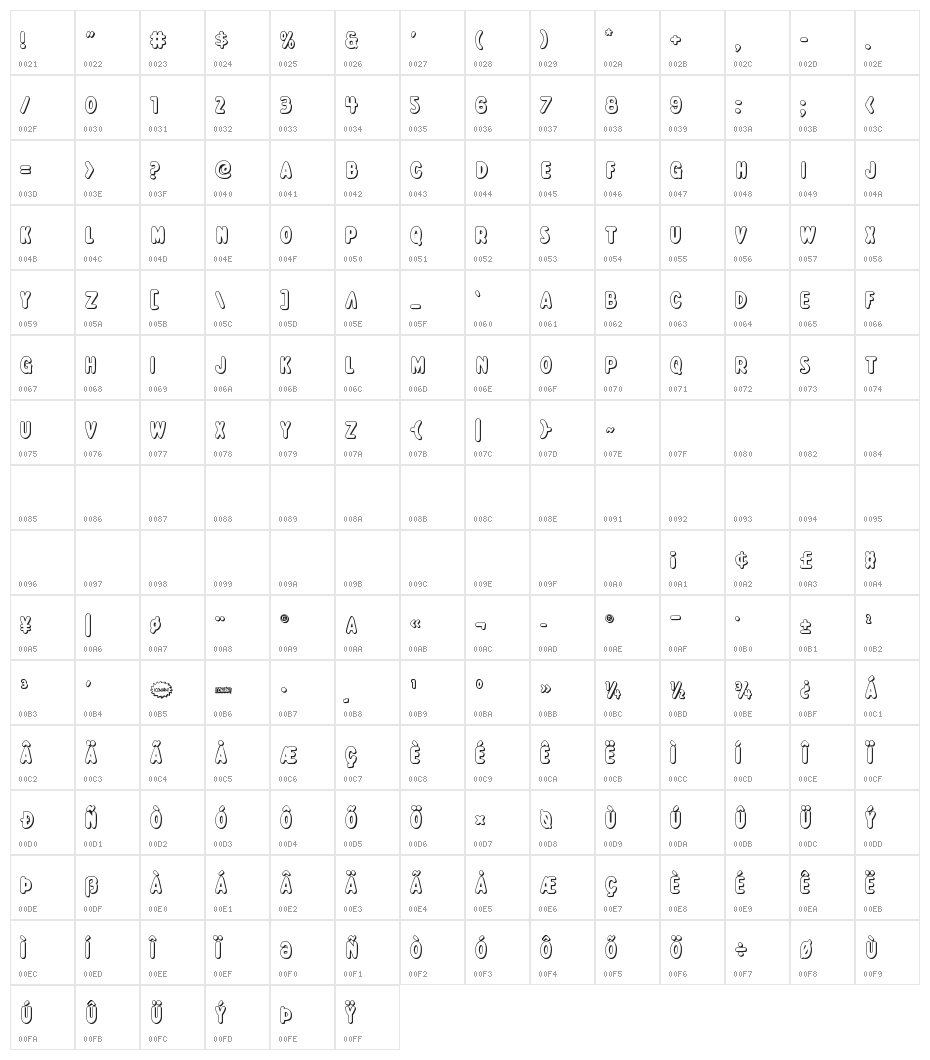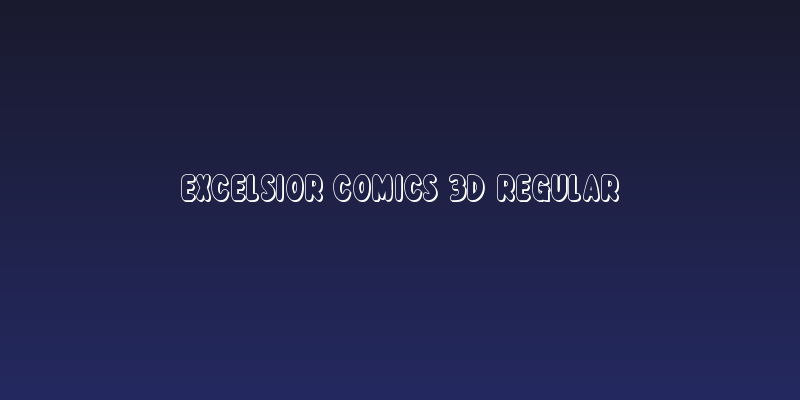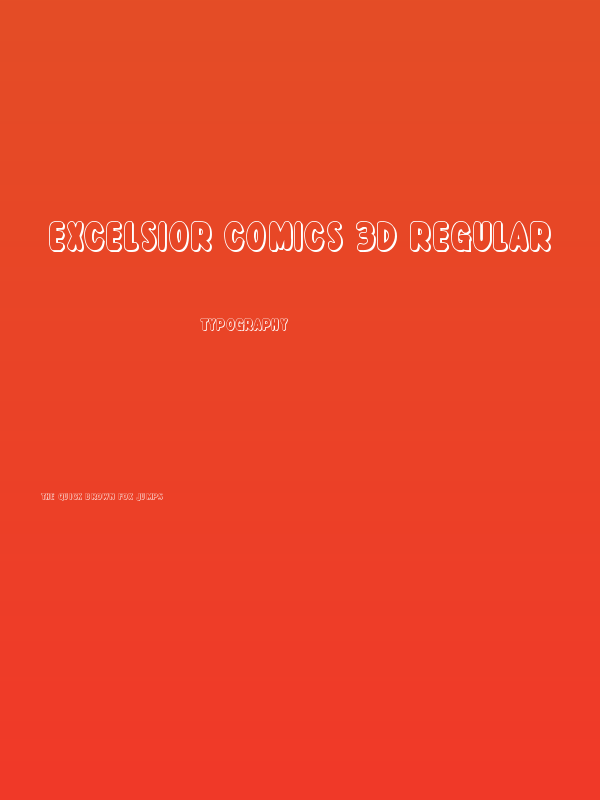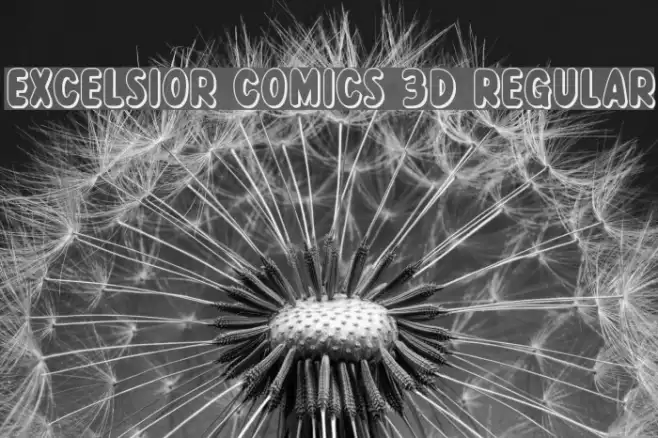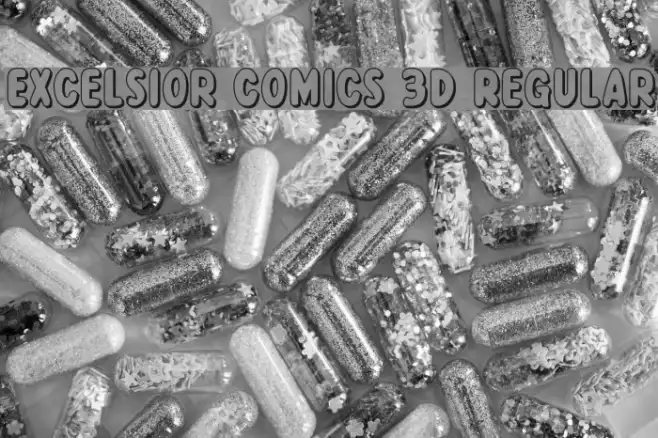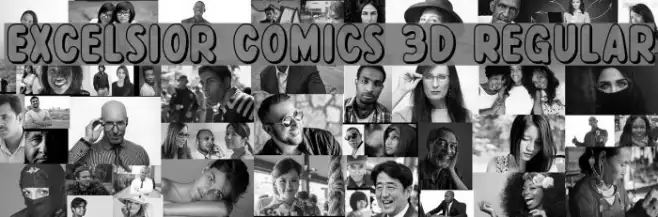
Excelsior Comics 3D Regular Font
Excelsior Comics 3D Regular Description
This playful and bold font features a 3D comic style with thick outlines that give it a fun and dynamic appearance. The characters are rounded and slightly inflated, creating a sense of depth and volume. The uppercase and lowercase letters maintain a consistent style, with a uniform stroke width that adds to its cartoonish charm. The numbers and special characters are equally bold and expressive, making them stand out. This font is perfect for projects that require a lively and engaging visual impact.
| Overall Style | Playful, Comic |
| Proposed Projects | Ideal for comic books, children's books, playful branding, posters, and video game graphics. |